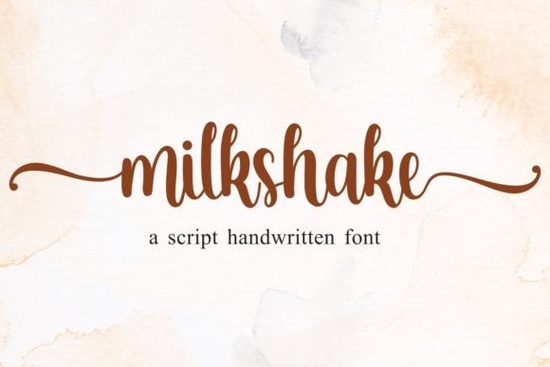
If you’re looking for a friendly, hand-drawn script font that feels personal without being overly formal, Milkshake Font is a solid choice. It’s not fussy or rigid it’s the kind of typeface you’d imagine scribbled with a fine-tip marker on a café napkin: slightly uneven, full of character, and quietly confident. Whether you're designing wedding stationery, labeling handmade candles, or building a small business brand with warmth at its core, Milkshake fits naturally into those spaces.
What makes Milkshake different from other script fonts?
Unlike many script fonts that rely on tight loops or dramatic flourishes, Milkshake keeps things relaxed. Its letterforms have subtle variation in stroke weight and natural entry/exit points no robotic uniformity. That’s why it works so well for projects where authenticity matters: think greeting cards, craft fair signage, or Instagram story text overlays. It’s also PUA encoded, meaning all alternate characters, ligatures, and stylistic sets are easy to access in design apps like Adobe Illustrator, Affinity Designer, or even Cricut Design Space no digging through glyph panels or installing extra files.
Where does Milkshake shine in real projects?
It’s especially useful when you want handwritten charm but need consistency across multiple pieces say, a set of matching baby shower invites and thank-you notes, or a cohesive product label series for a small-batch jam brand. Because it’s versatile enough to pair with clean sans-serifs (like Montserrat or Inter) or soft serif companions (like Cormorant Garamond), it adapts instead of dominating.
For print-on-demand sellers, Milkshake adds personality to mugs, tote bags, and framed prints without clashing with busy backgrounds. Crafters appreciate how well it cuts on vinyl or engraves on wood the shapes are open and legible even at smaller sizes. And if you’re building a blog or small business site, using Milkshake sparingly in headings or logos helps reinforce a warm, approachable voice.
How does it compare to other popular script fonts?
Milkshake sits comfortably between playful and polished less bouncy than Mama Papa Duo Font, more grounded than Southmore Font. If you’ve used Fidelity Contrasts Font before, you’ll notice Milkshake trades contrast for cohesion it’s softer, less structured, and built for warmth over precision. For wedding-focused work, Elegant Wedding Font offers more formality, while Milkshake gives you room to keep things light and joyful.
And if you enjoy experimenting with custom lettering, you might like pairing Milkshake with tools like Font Maker it’s a great starting point for tweaking spacing or adding your own swashes before exporting.
Practical tips for using Milkshake well
- Watch line height: Because of its natural rhythm, tighter leading can make lines feel cramped. Try 1.4–1.6x font size for body-sized text.
- Avoid all-caps: It’s designed as a lowercase-dominant script uppercase letters exist but aren’t its strongest suit.
- Test readability at scale: Works beautifully at 24pt+, but below 14pt, some details (like delicate joins) may blur in print or on low-res screens.
- Pair thoughtfully: Try it with neutral sans-serifs for contrast, or soft serifs for harmony avoid competing scripts unless they’re clearly complementary in weight and mood.
One thing to keep in mind: Milkshake isn’t meant for long paragraphs or technical documents. It’s a voice not a workhorse. Use it where tone matters most: headlines, quotes, labels, logos, and short bursts of text that benefit from human touch.
If you’re already working with other script fonts and want to expand your collection without repeating styles, Milkshake fills a specific gap the “friendly neighbor” font. Not flashy, not fussy, just reliably warm and easy to use.